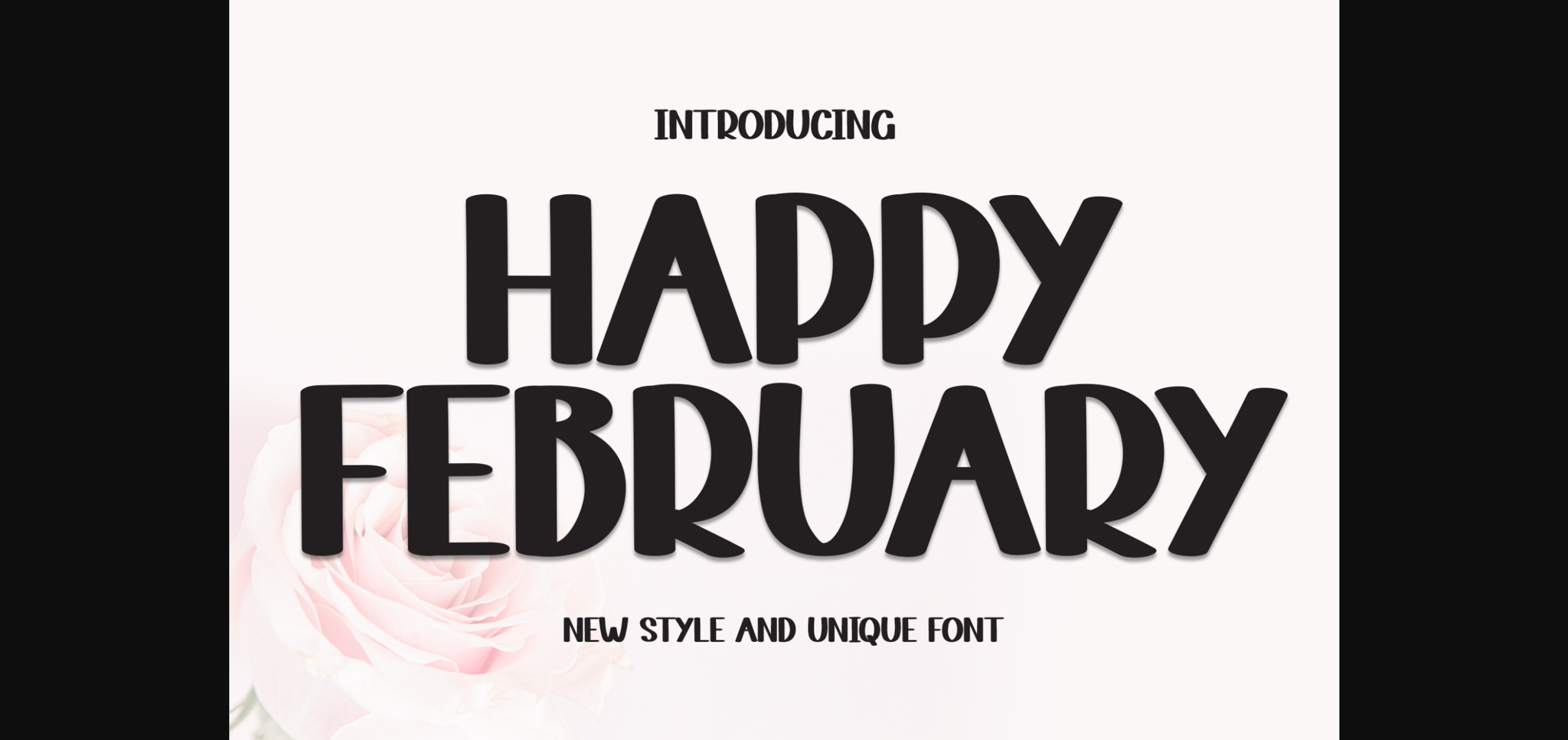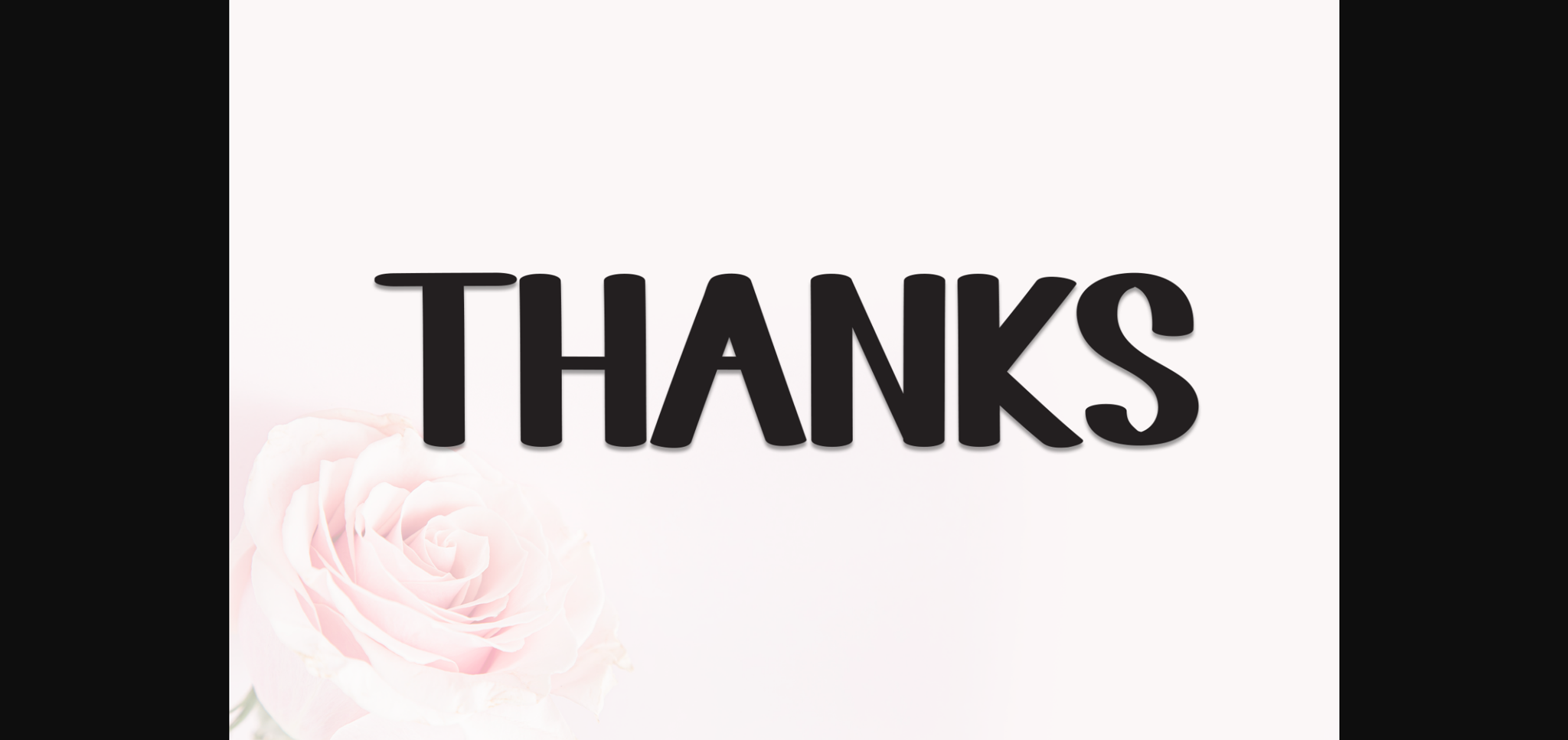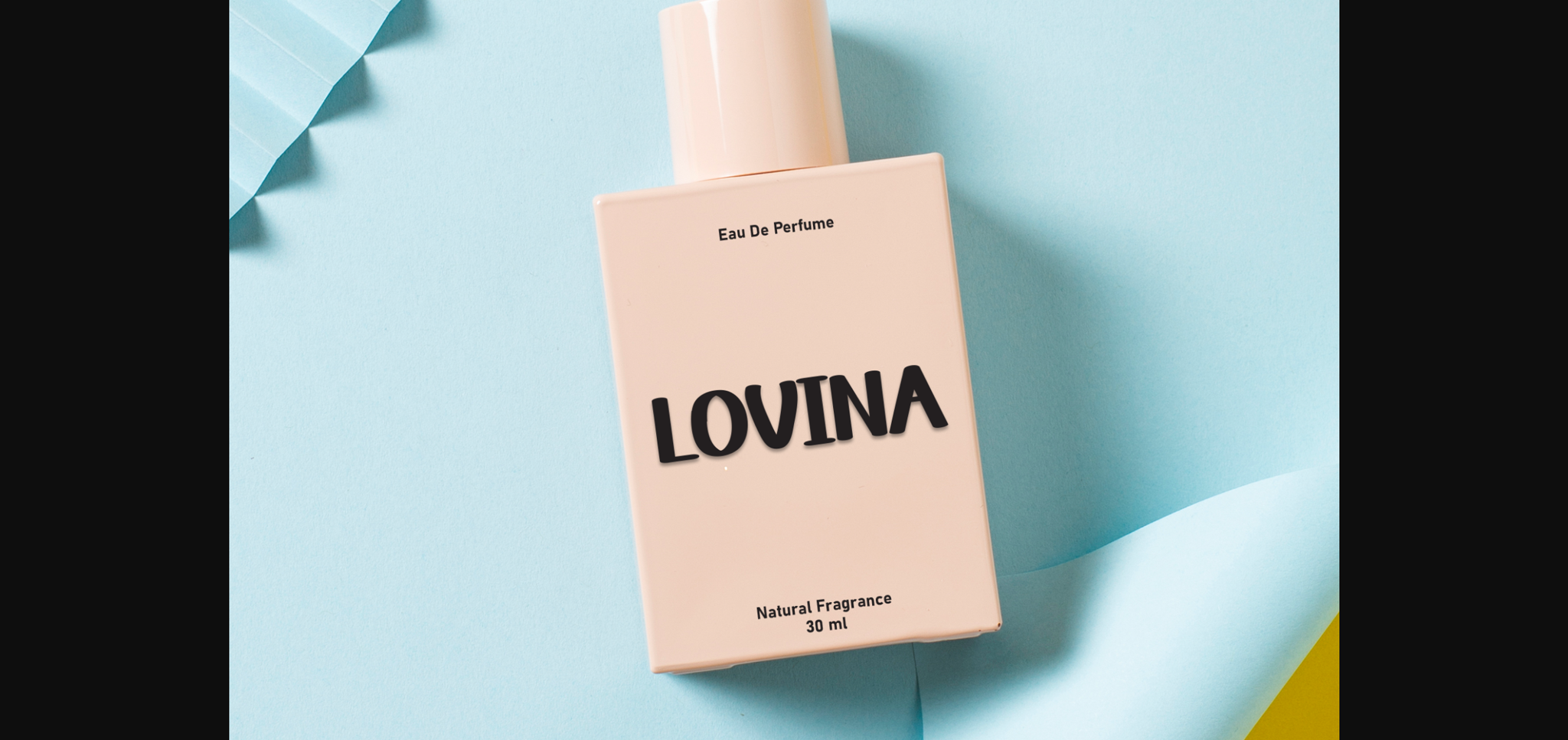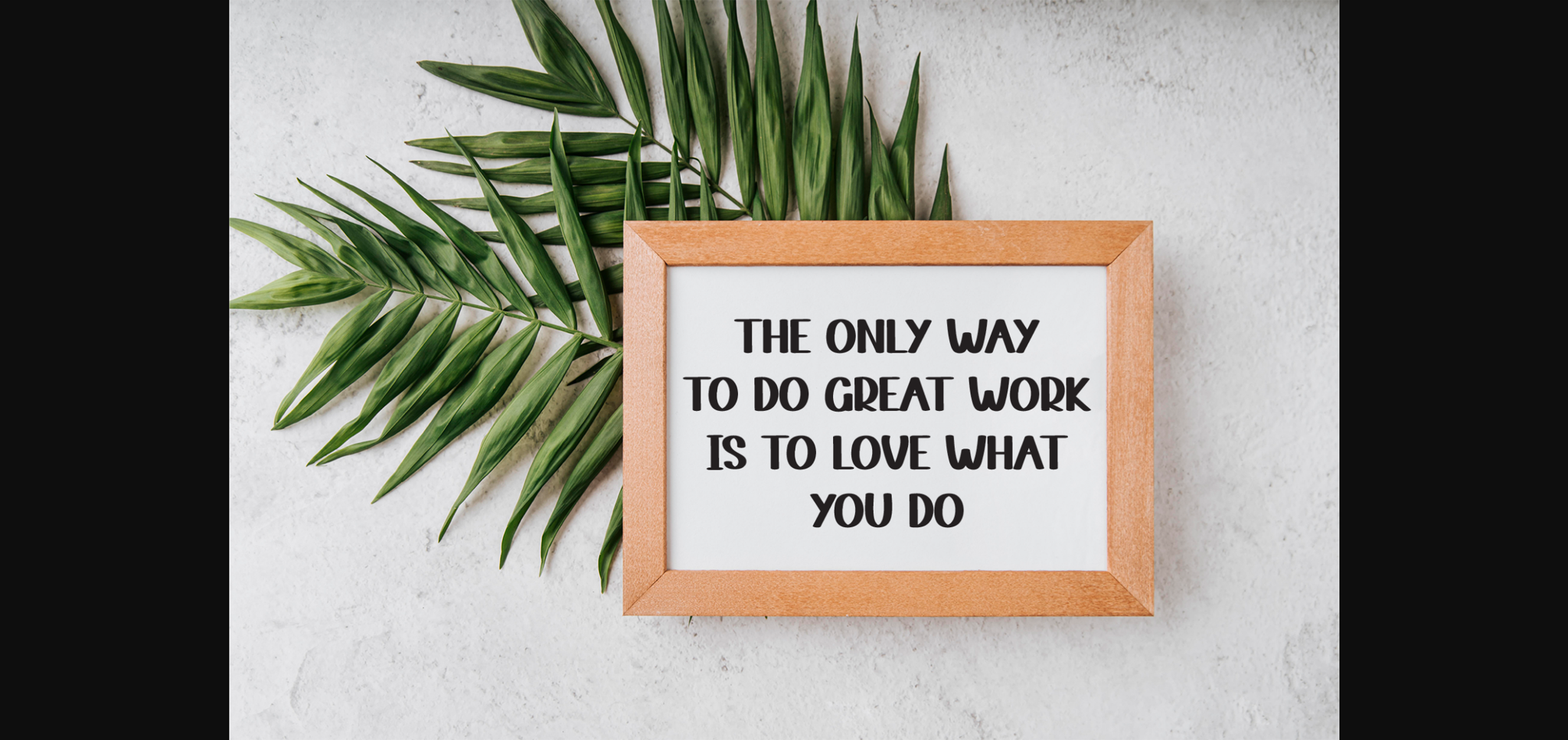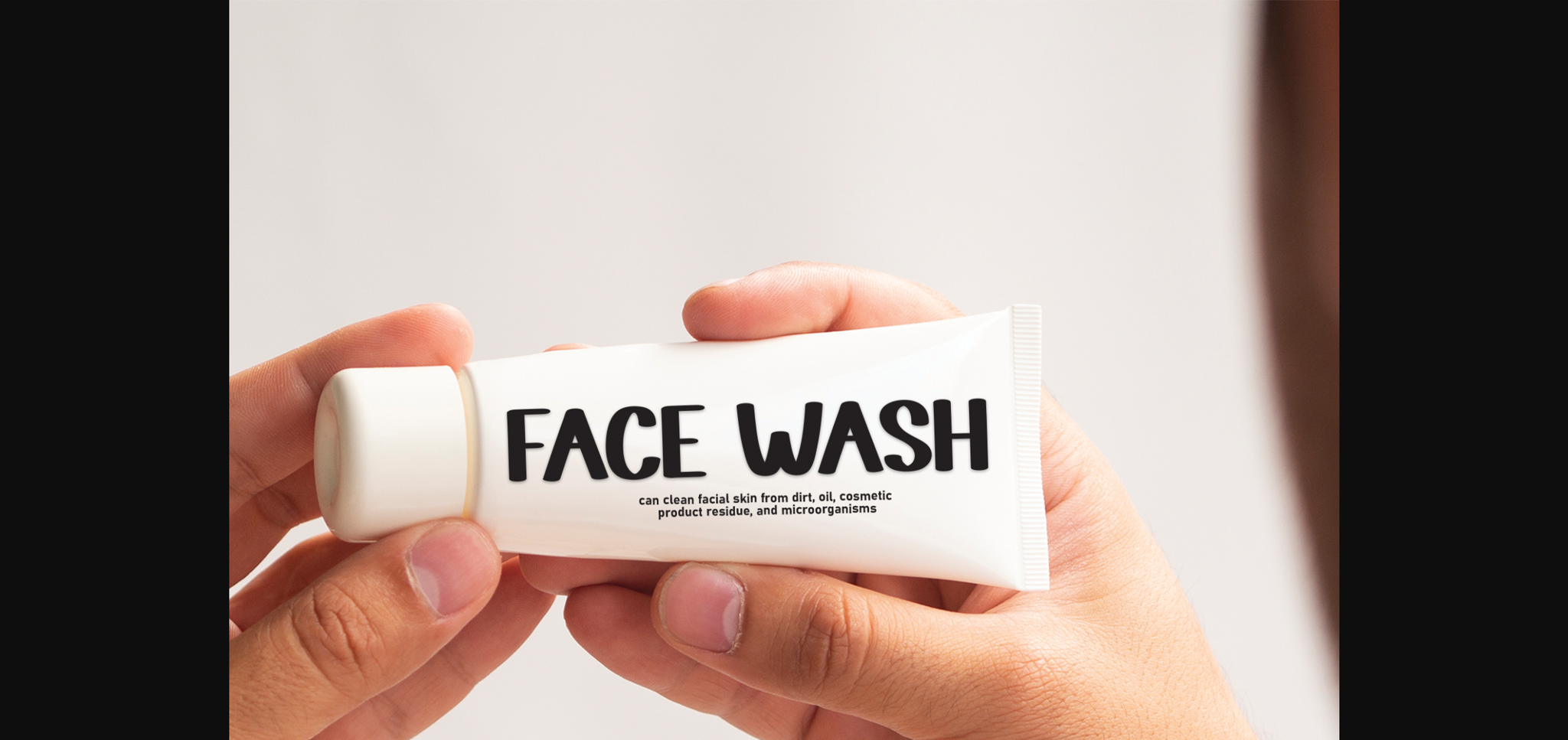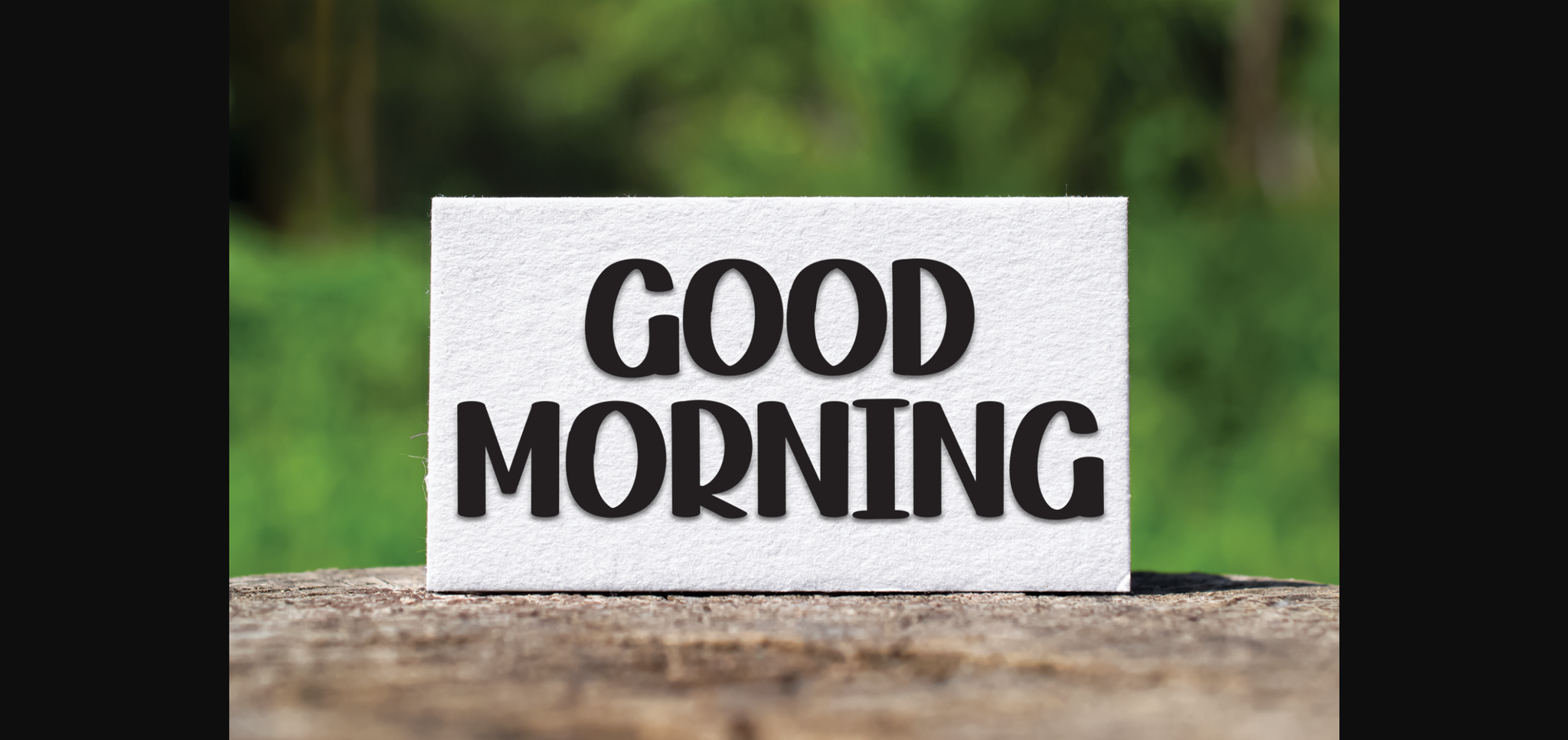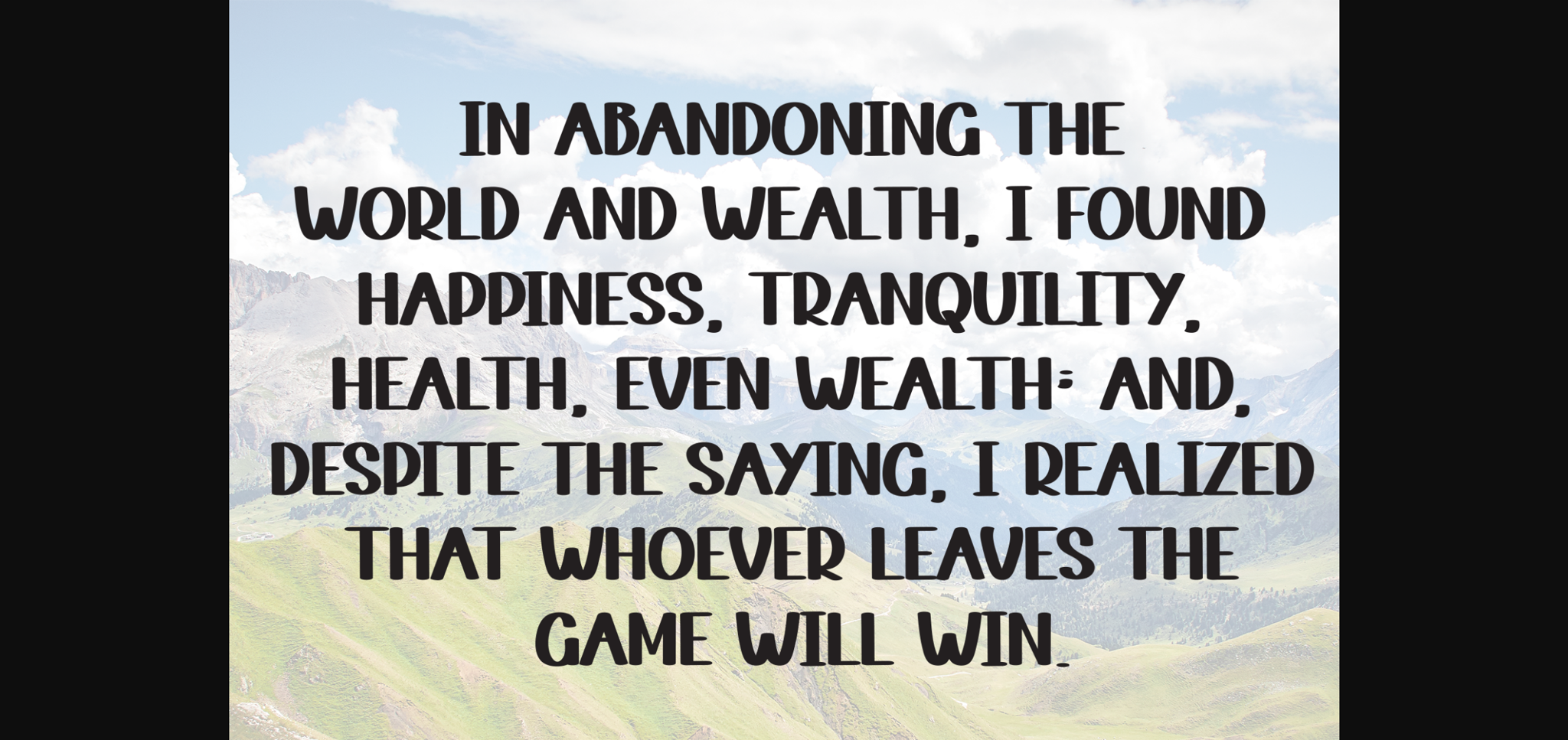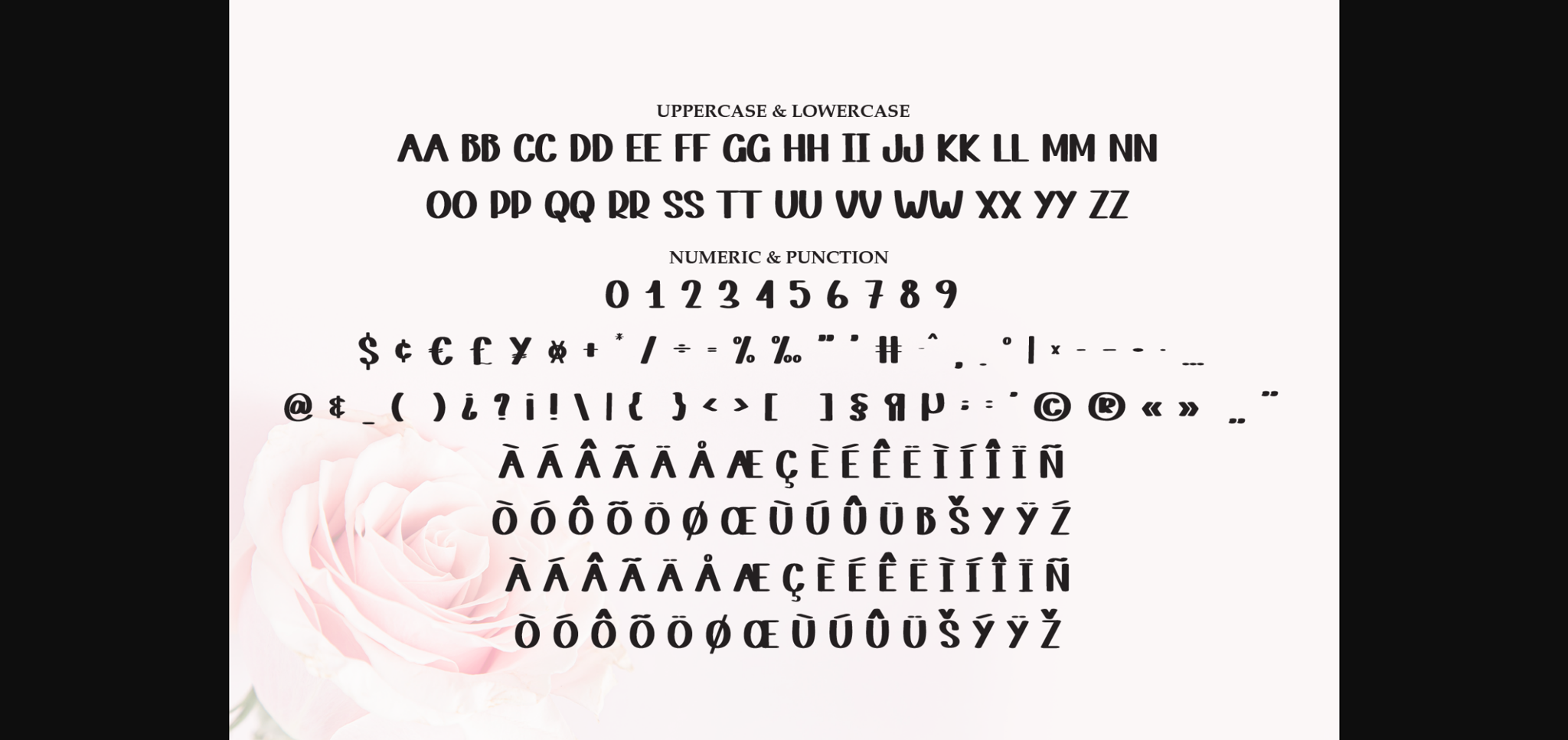
Happy February Font
About Happy February Font
Happy February is a sweet and friendly sans-serif font. Cute yet versatile, this font is ideal for writing wedding invitations, cards, or any other design that might need a fresh touch!